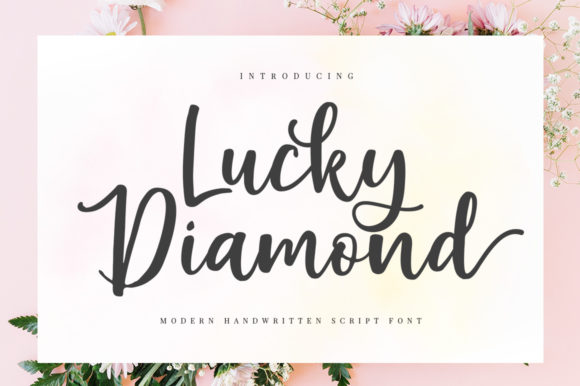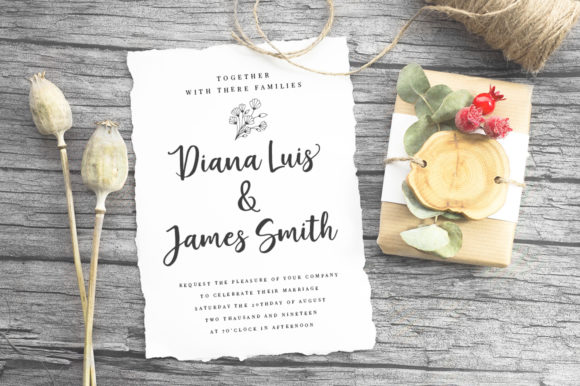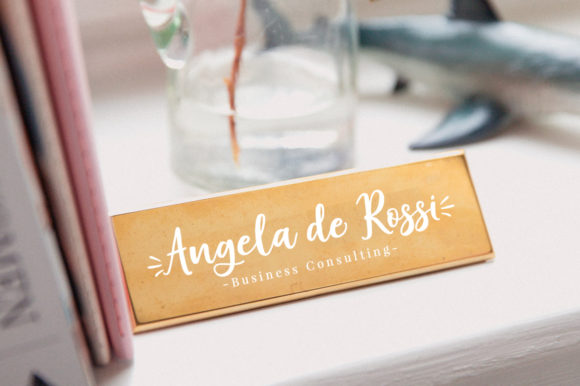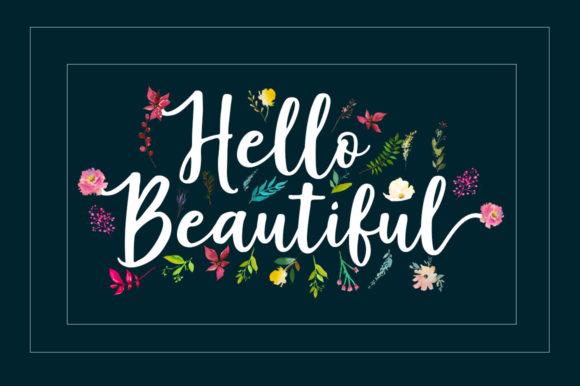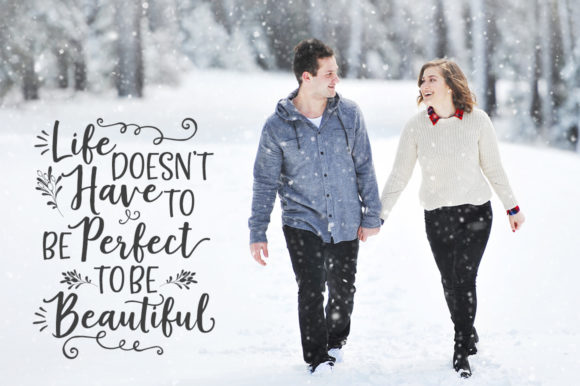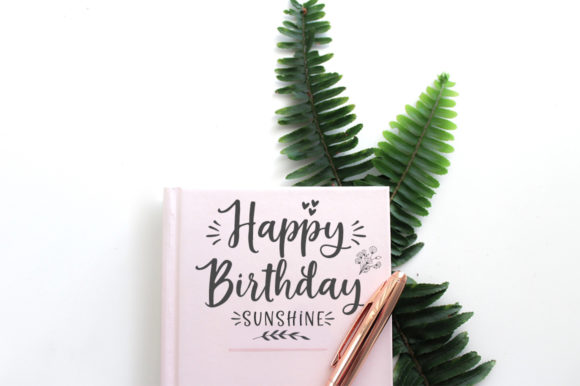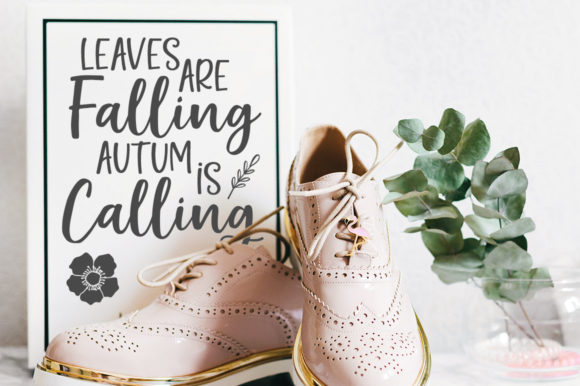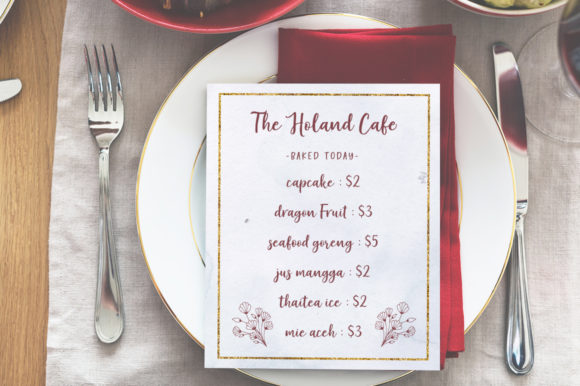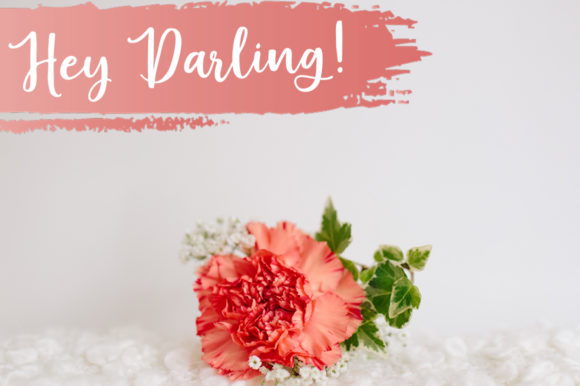
Lucky Diamond Font
About Lucky Diamond Font
Lucky Diamond is a beautiful handwritten font with a unique feel. It will turn any design project into a beautiful piece of art.